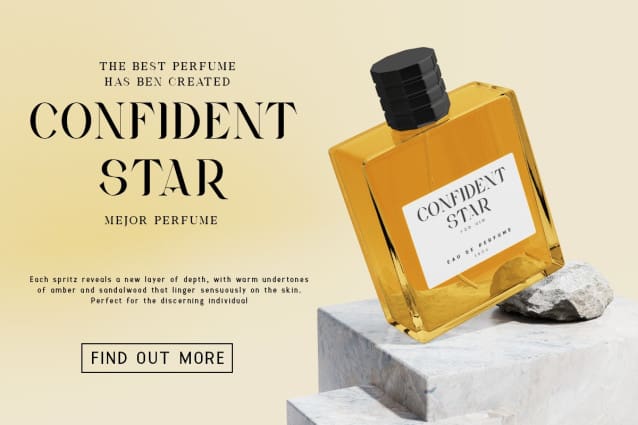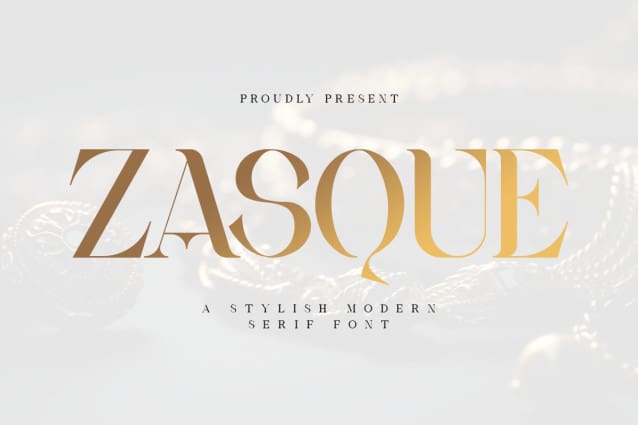
Zasque Font
Zasque Font – Modern Luxury Unique Serif Font is one of the fonts with a modern, unique, and elegant look. This impression is what makes this font different from other serif fonts. Zasque Font – Modern Luxury Unique Serif Font has letter forms like other fonts that are firm but have long curved serifs. This font can be distinguished between letters easily. It can read clearly from a distance or near. The font is legible.
Zasque Font – Modern Luxury Unique Serif Font can be used as digital and print fonts. The character of this font makes it one of the best fonts that have high compatibility when used for wedding invitations, branding, fashion, book titles, business cards, posters, and many others. The function must pay attention to the font size and theme.
The elegant impression of Zasque Font – Modern Luxury Unique Serif Font will make the product completed with the font have a high aesthetic value. It will look modern and attractive. With the presence of this font, it is hoped that it can increase your choices for serif font lovers in choosing the appropriate font for the object you are going to mix.